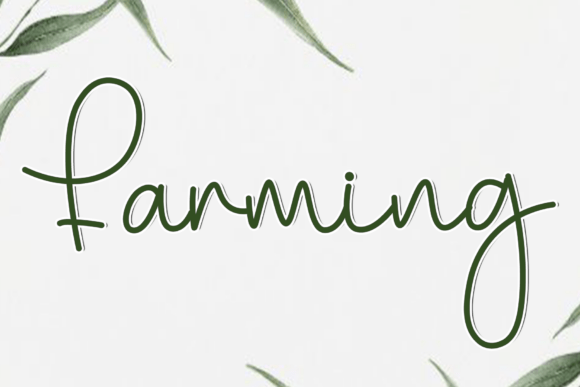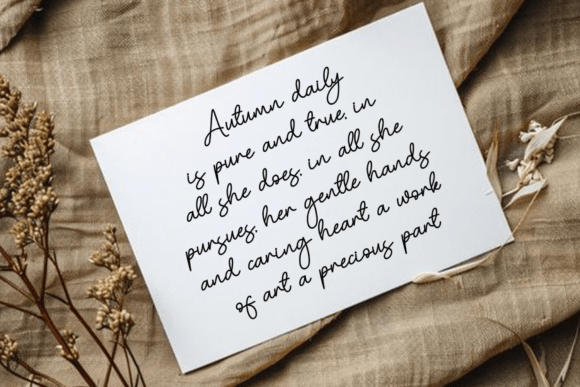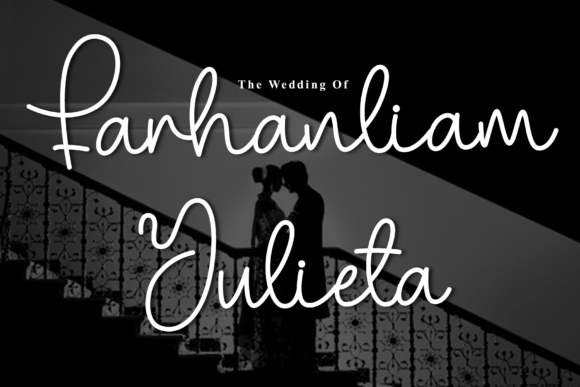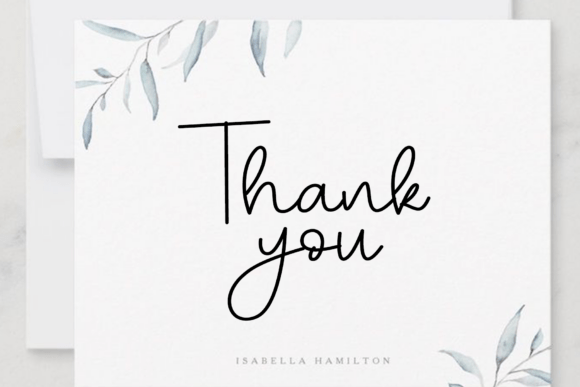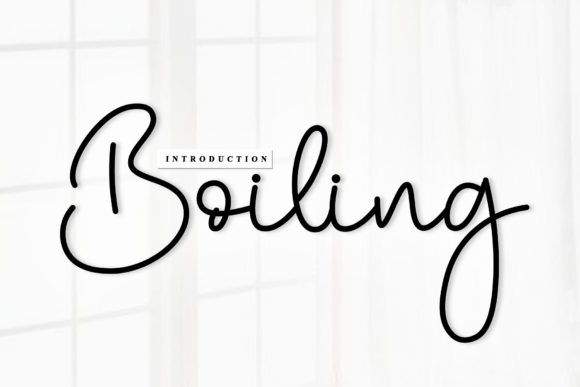
Introducing Boiling Font: A Timeless Handwritten Gem
Are you a designer or crafter looking for the perfect font to elevate your creative projects? Look no further than Boiling Font, a lovely and timeless handwritten font that’s sure to capture attention. In this article, we’ll dive into the world of Boiling Font, exploring its unique features, uses, and benefits.
A Beautifully Crafted Font
Boiling Font is a stunning handwritten font that’s been carefully crafted to bring a touch of elegance and sophistication to your designs. Every letter has a unique and beautiful touch, making it perfect for creating eye-catching logos, branding, and quotes. The font’s timeless quality ensures that it will remain relevant and stylish for years to come.
What Makes Boiling Font Special?
So, what sets Boiling Font apart from other fonts? Here are just a few of its standout features:
- Unique Letterforms: Each letter in Boiling Font has been carefully crafted to have its own distinct character, making it perfect for creating visually interesting and dynamic text.
- Handwritten Charm: Boiling Font has a warm, handwritten feel that’s perfect for adding a personal touch to your designs.
- Timeless Appeal: Unlike trendy fonts that quickly go out of style, Boiling Font has a timeless quality that ensures it will remain stylish for years to come.
Uses for Boiling Font
Boiling Font is an incredibly versatile font that can be used in a wide range of creative projects, including:
- Logo Design: Create eye-catching logos that showcase your brand’s personality and style.
- Branding: Use Boiling Font to create consistent branding across all your marketing materials, from business cards to website headers.
- Quotes and Typography: Add a touch of elegance to your quotes and typography with Boiling Font’s beautiful letterforms.
- Stationery and Invitations: Create beautiful stationery and invitations that showcase your personal style.
Benefits of Using Boiling Font
So, why should you choose Boiling Font for your next project? Here are just a few benefits:
- Easily Readable: Boiling Font is clear and easy to read, making it perfect for body text and captions.
- Highly Versatile: Use Boiling Font in a wide range of creative projects, from logos and branding to quotes and typography.
- Time-Saving: With Boiling Font, you can create stunning designs in no time, saving you hours of work and frustration.
Tips for Using Boiling Font
To get the most out of Boiling Font, here are a few tips to keep in mind:
- Experiment with Sizes and Colors: Play around with different sizes and colors to find the perfect combination for your design.
- Mix and Match with Other Fonts: Combine Boiling Font with other fonts to create visually interesting and dynamic text.
- Use it Consistently: Use Boiling Font consistently across all your marketing materials to create a strong brand identity.
In conclusion, Boiling Font is a timeless handwritten font that’s perfect for designers and crafters looking to elevate their creative projects. With its unique letterforms, handwritten charm, and timeless appeal, Boiling Font is sure to capture attention and leave a lasting impression. Whether you’re creating logos, branding, quotes, or typography, Boiling Font is the perfect choice.